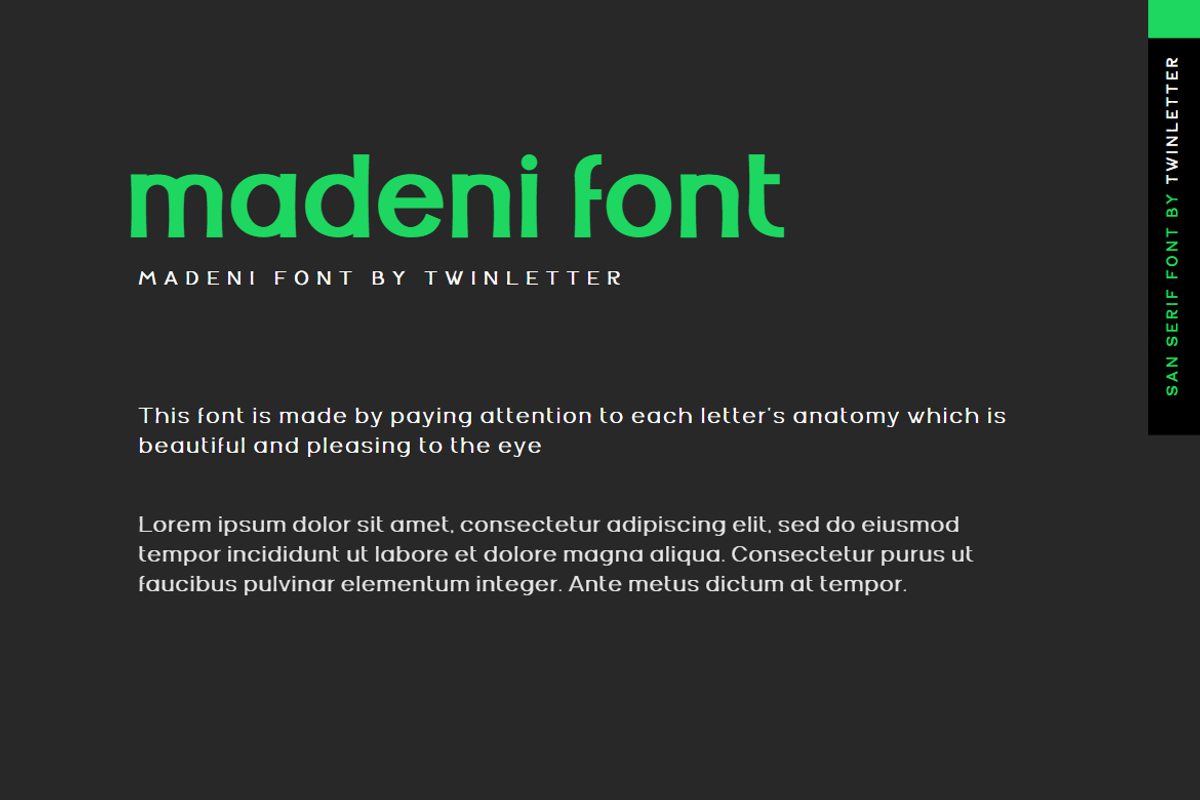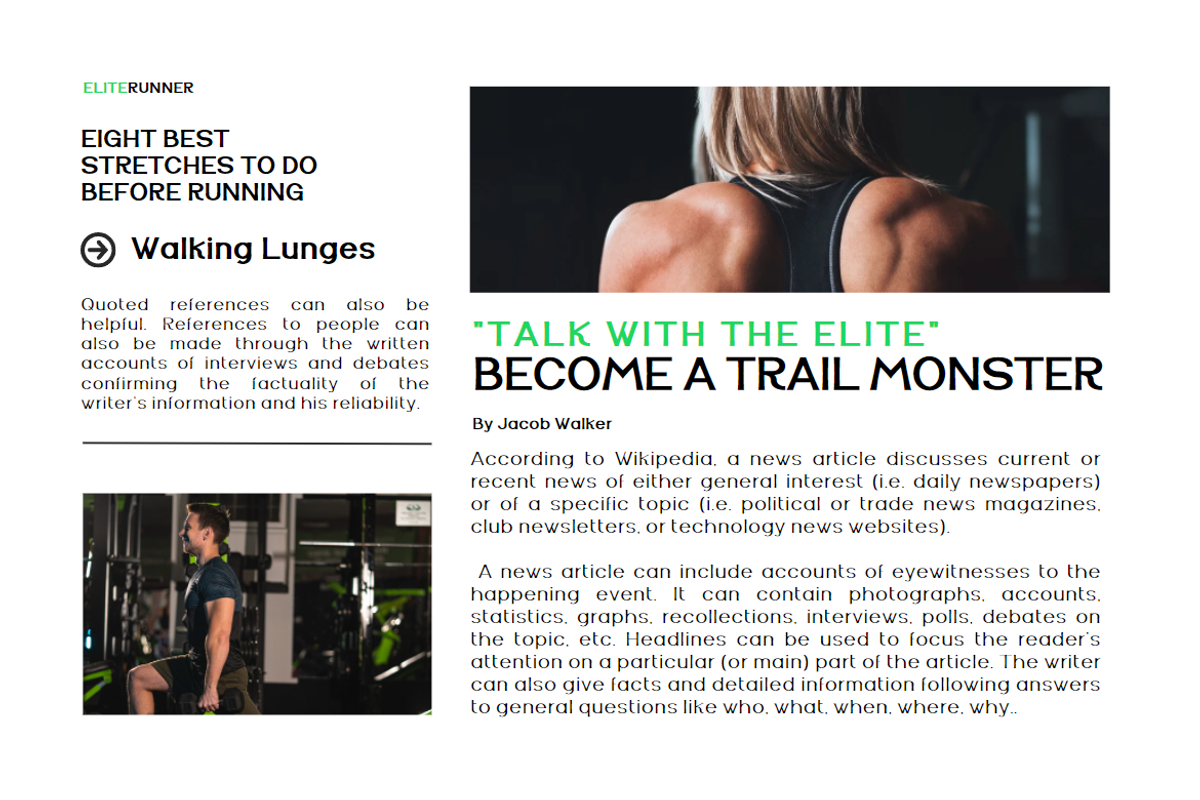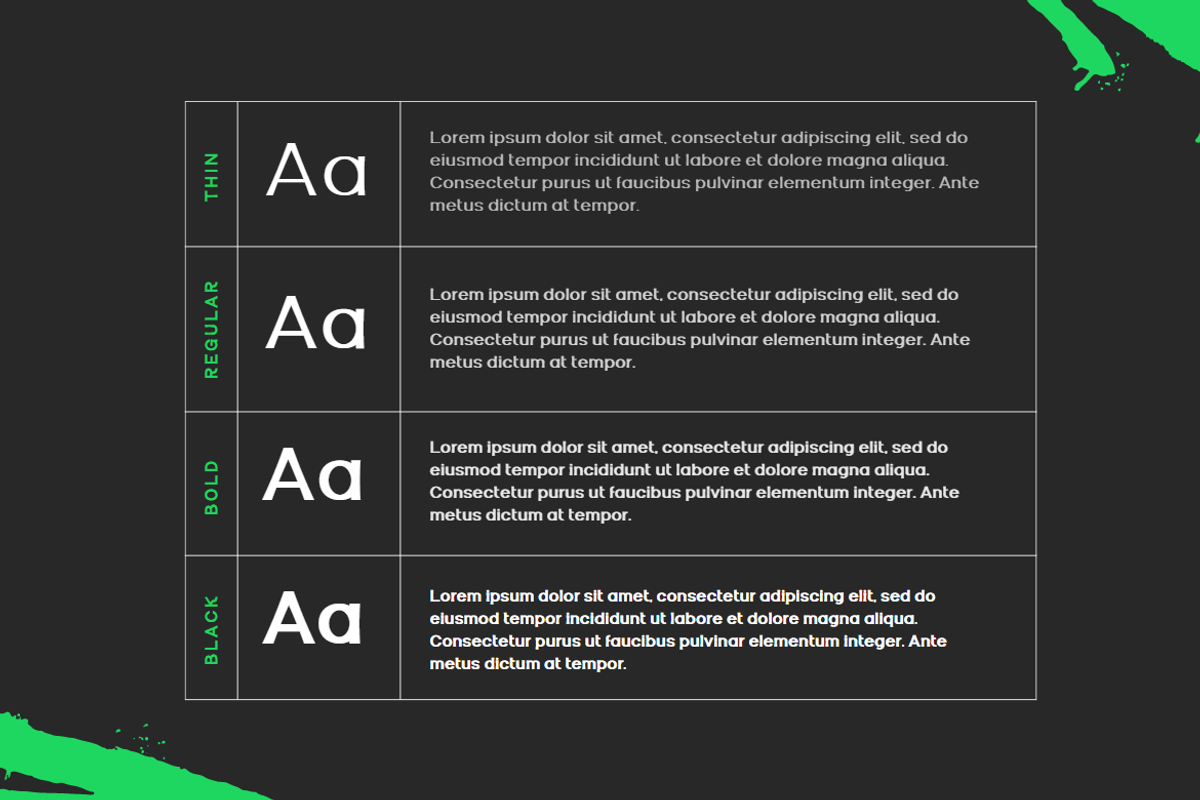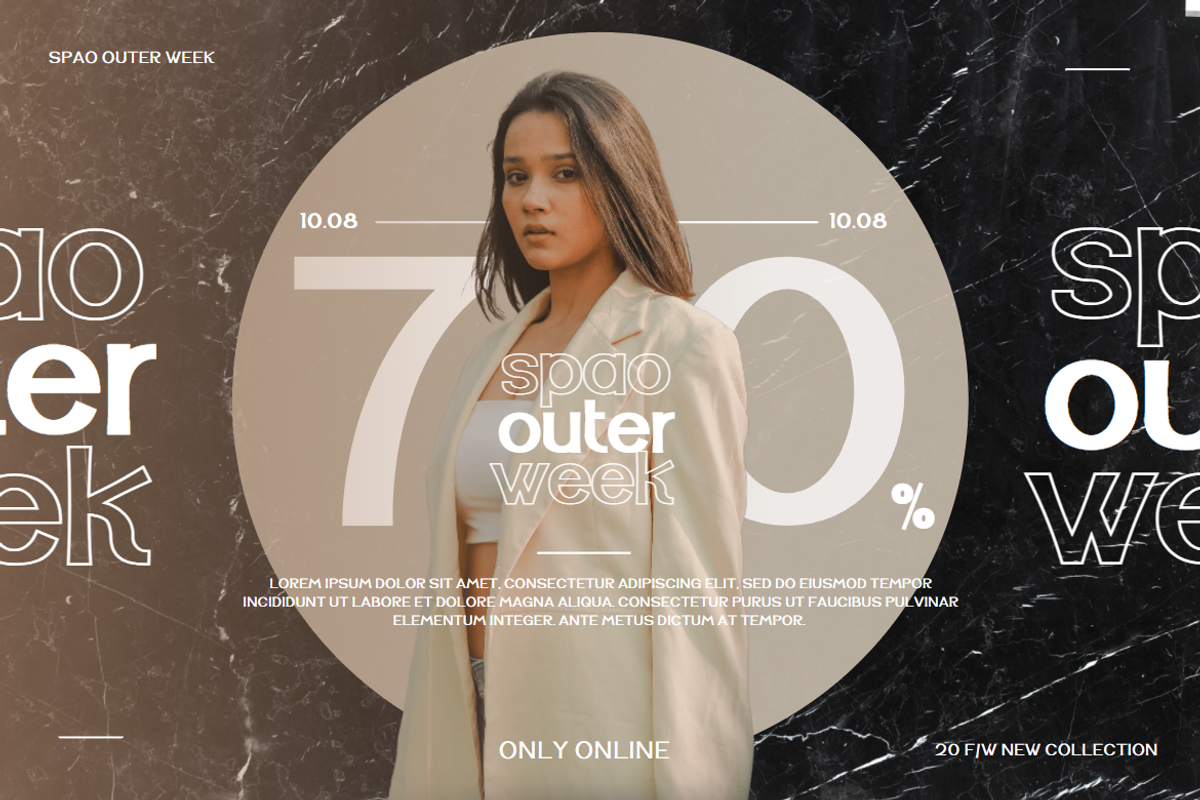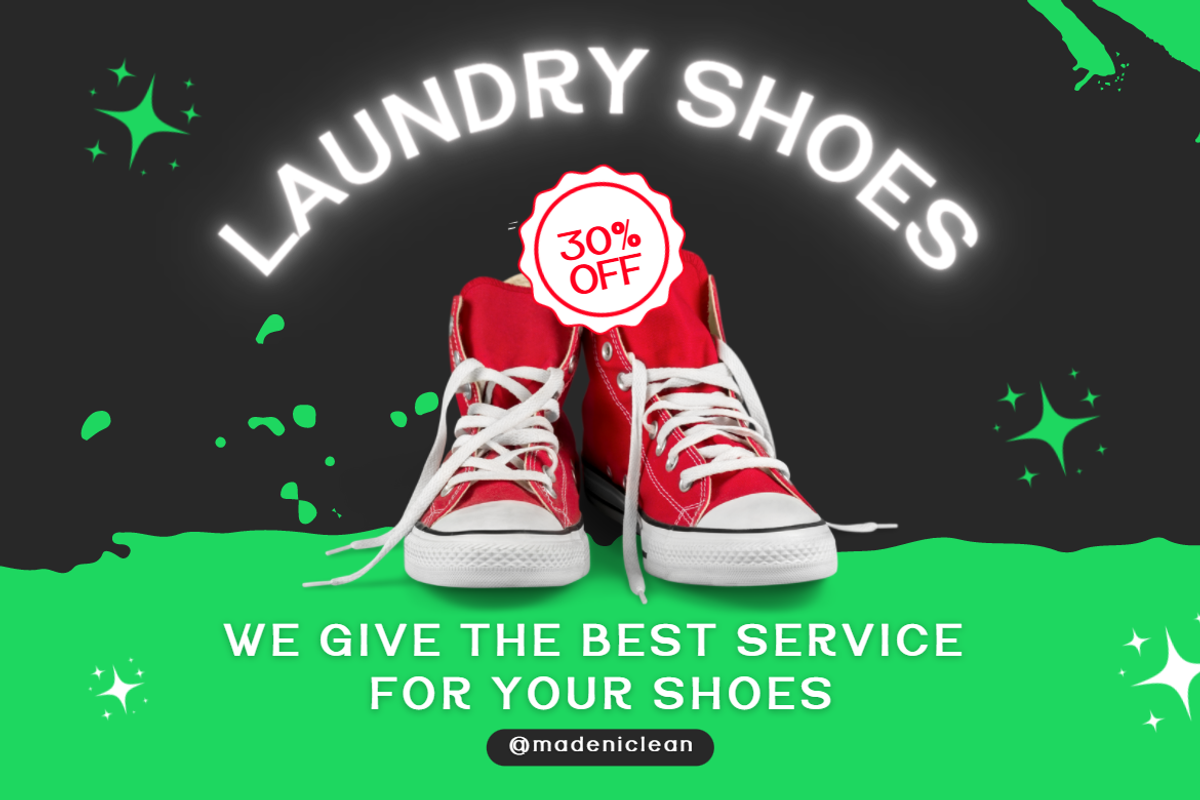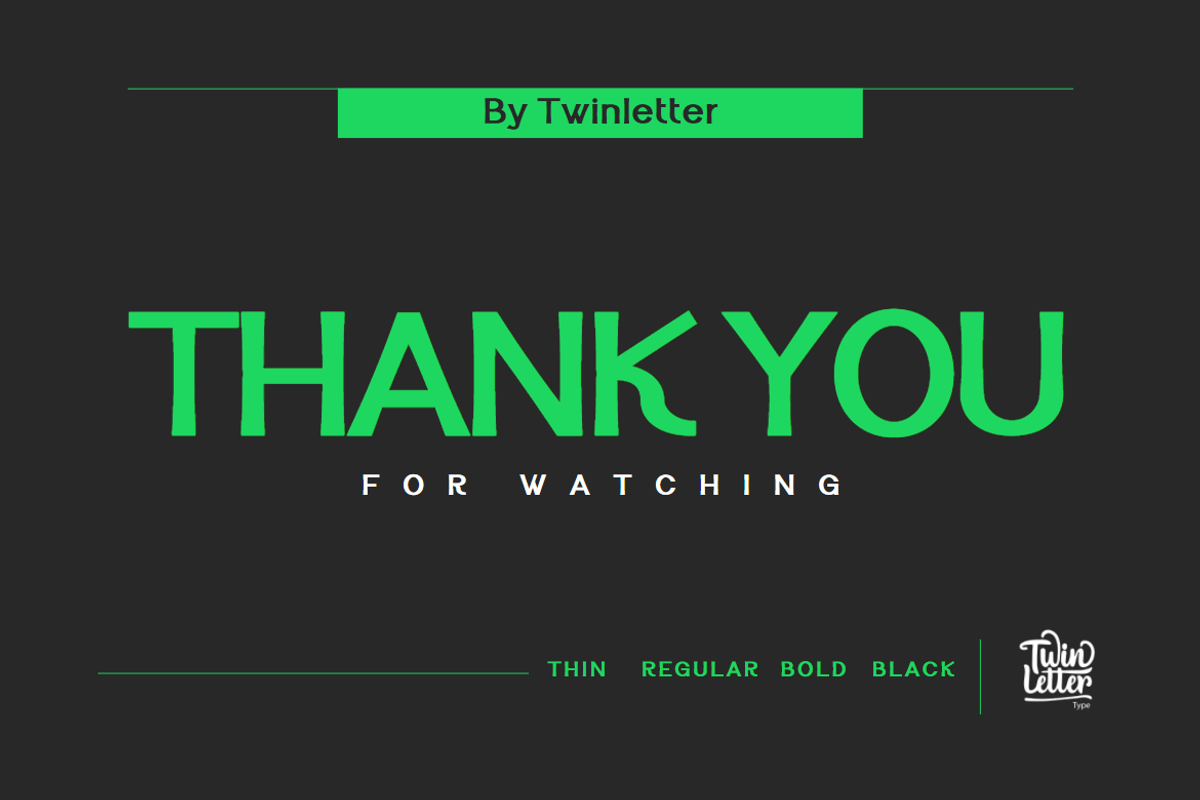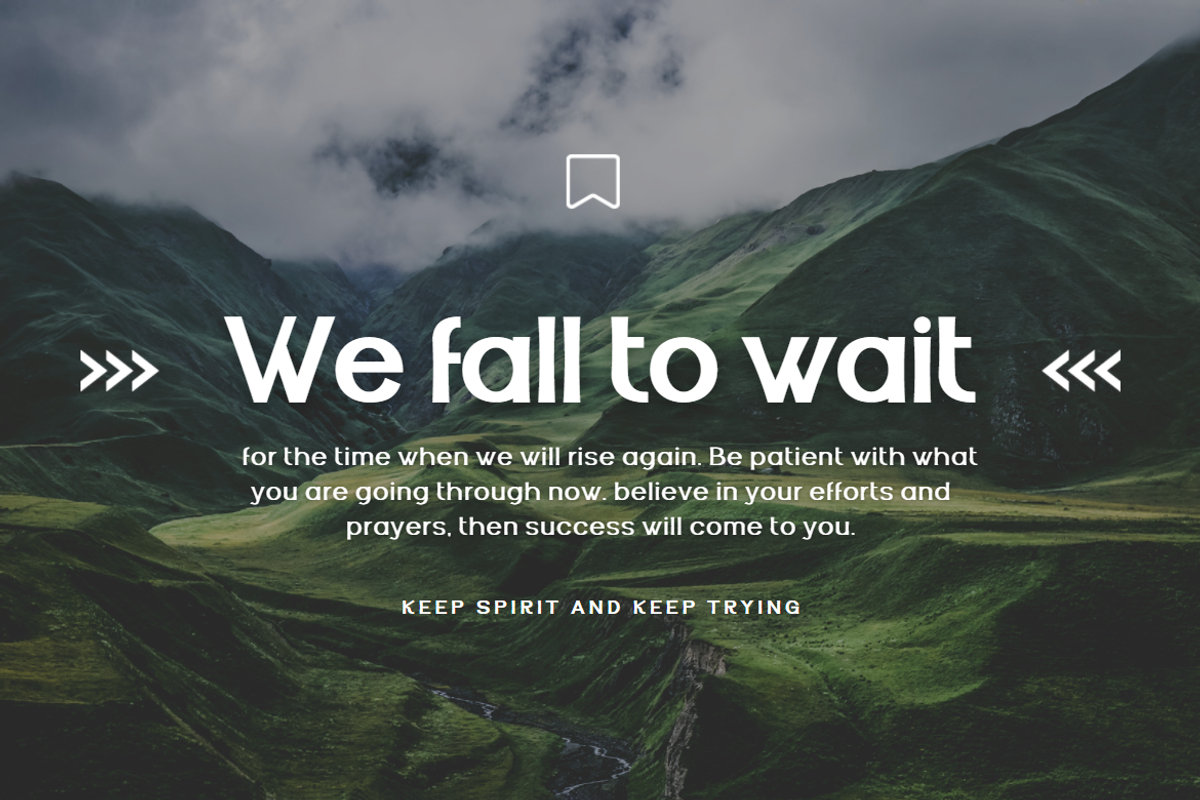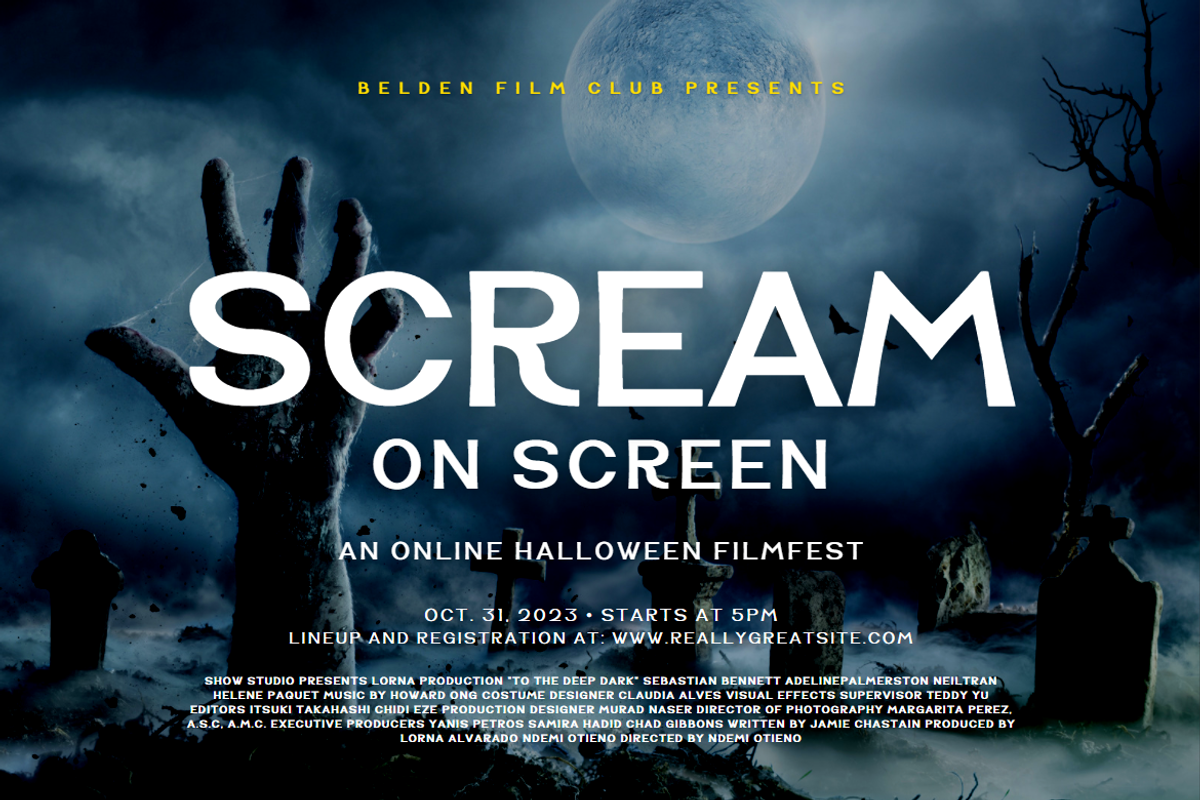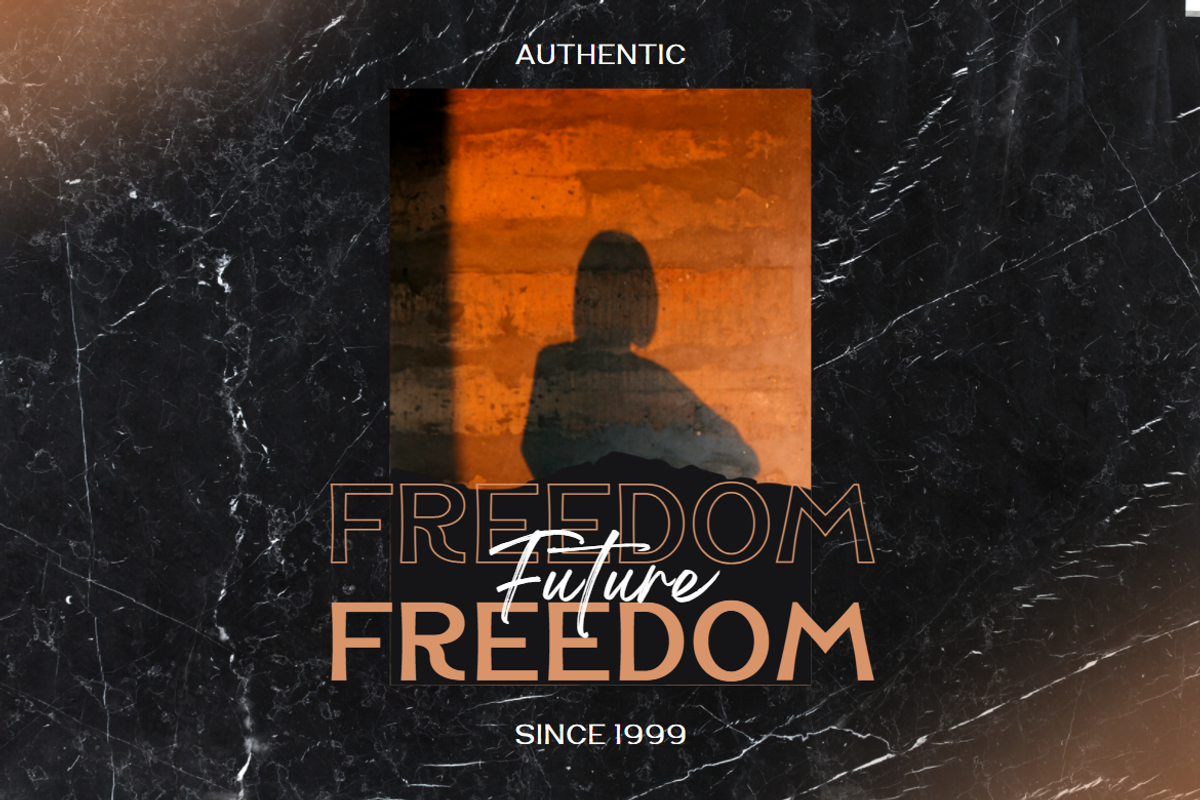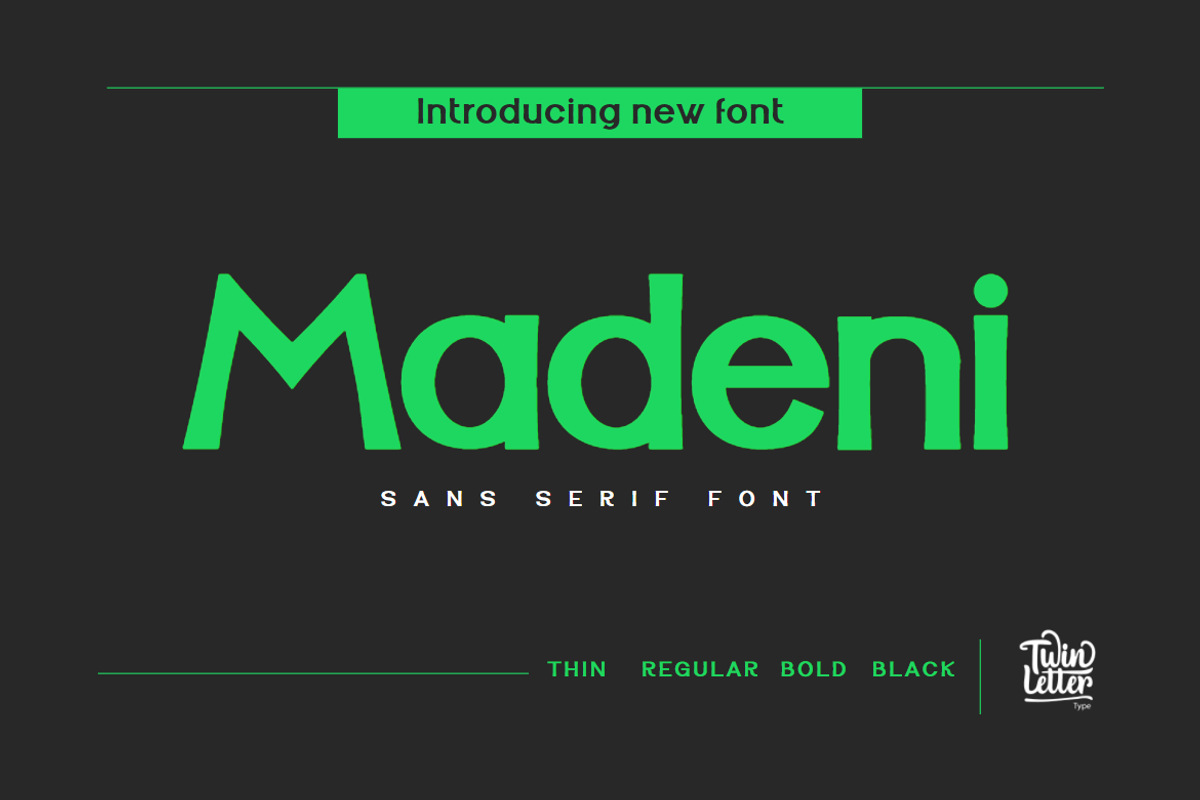
Madeni
Madeni, our newest sanserif typeface, is now available. In the end, this brand is a typeface that may be used in a variety of styles. You can choose from a large range of flying machines, each of which is meticulously crafted to create a gorgeous appearance. Madeni features a number of on-trend features, such as precisely produced and balanced display fonts and characters. Use this beauty in your work, and you will undoubtedly get the greatest results possible.
of course, your various design projects will be perfect and extraordinary if you use this font because this font is equipped with a font family, both for titles and subtitles and sentence text, start using our fonts for your extraordinary projects.